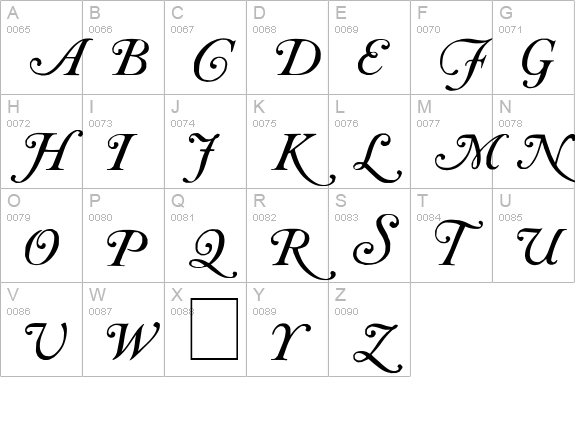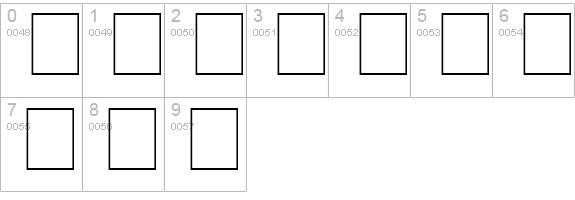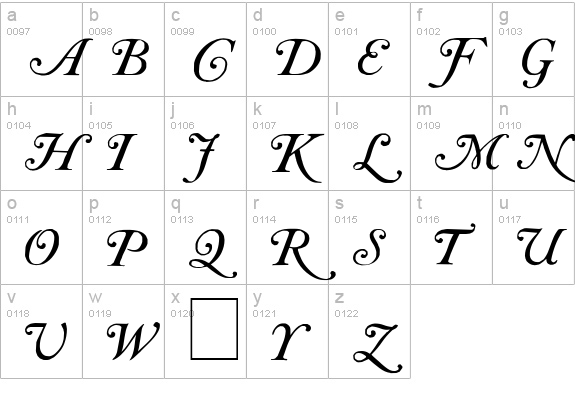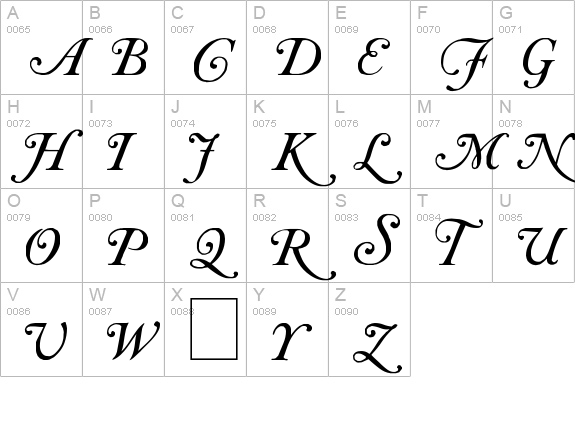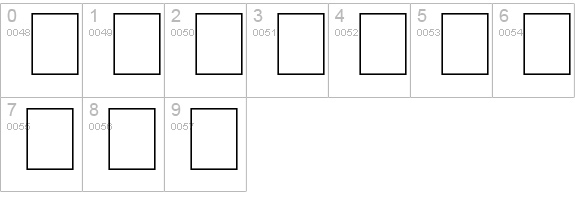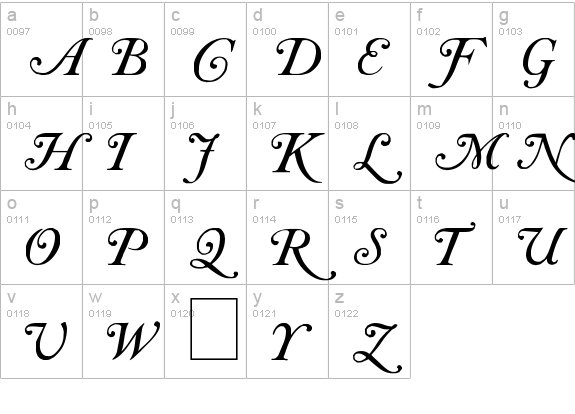
Caslon Initials Font Details
Caslon Initials font is a classic and elegant typeface that exudes sophistication and charm. Its intricate and ornate design makes it perfect for adding a touch of vintage flair to your projects. The detailed swirls and curves of the letters create a sense of timeless beauty that is sure to captivate any audience. What makes Caslon Initials font even more appealing is that it is available for free download at FontsMarket.com. This means you can easily access this stunning font and use it in your designs without any cost. Whether you're working on invitations, posters, or branding materials, Caslon Initials font will elevate your work to new heights with its refined and graceful aesthetic. Don't miss out on the opportunity to enhance your designs with this exquisite font. Download Caslon Initials today for free from FontsMarket.com and bring a touch of elegance to your projects.